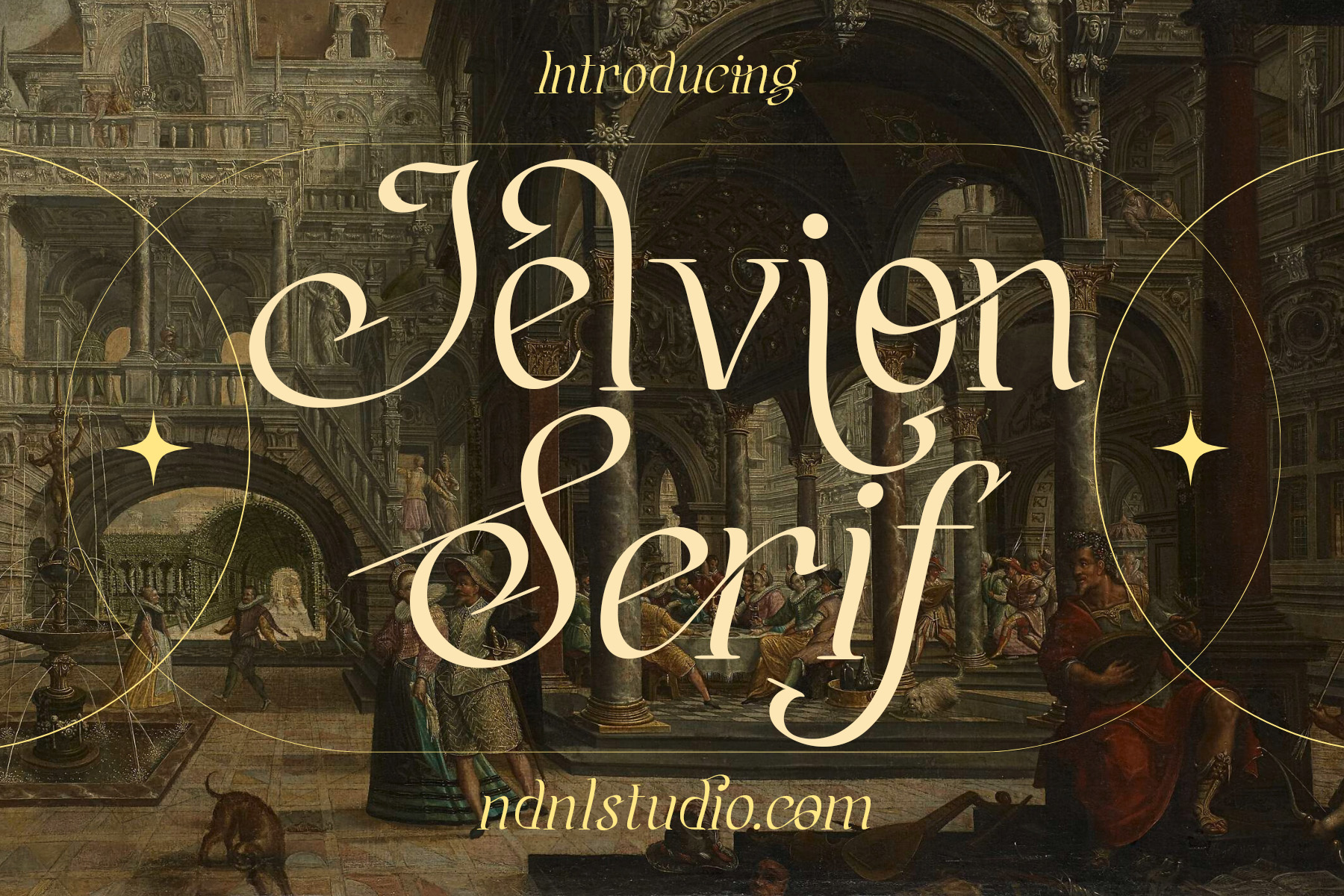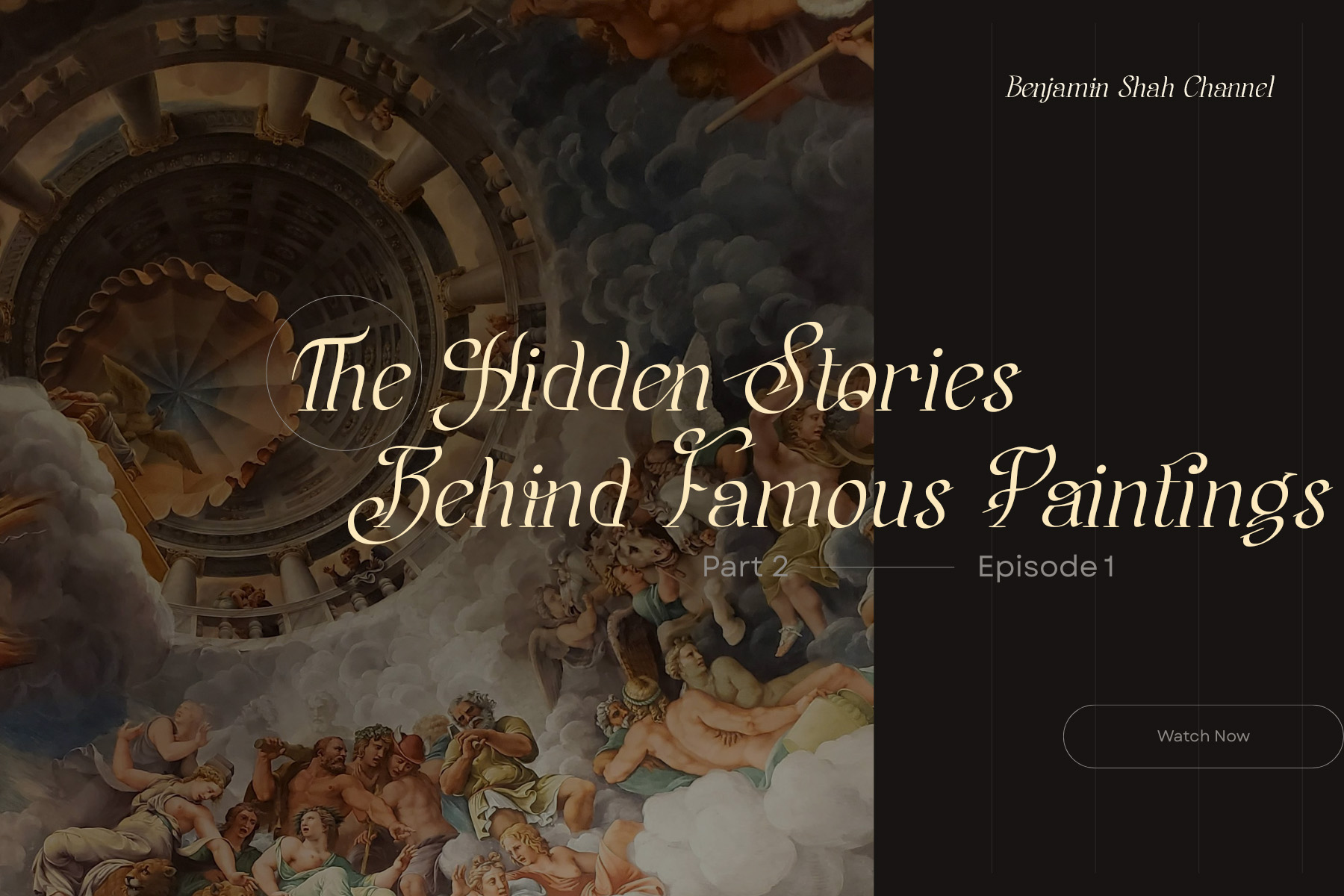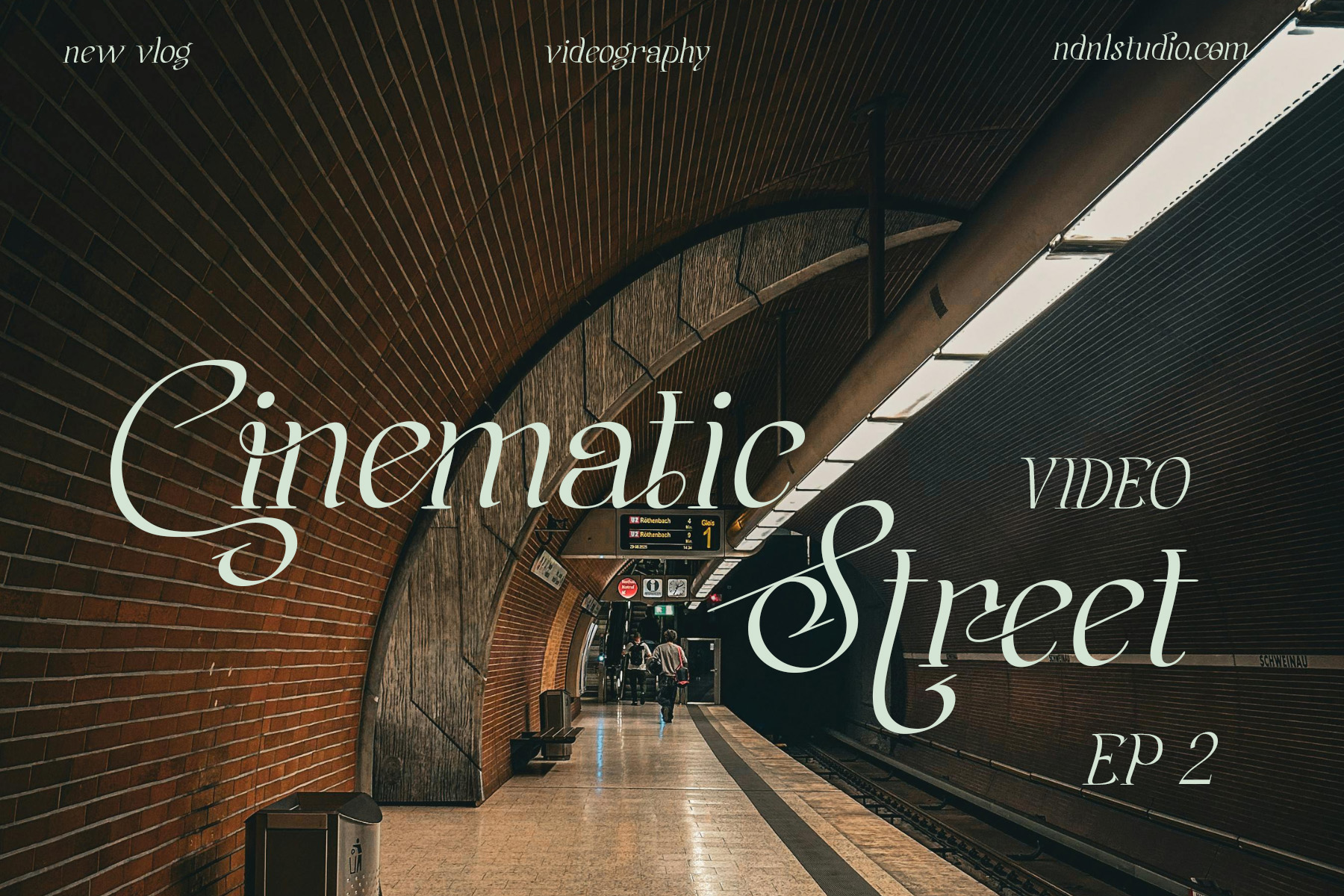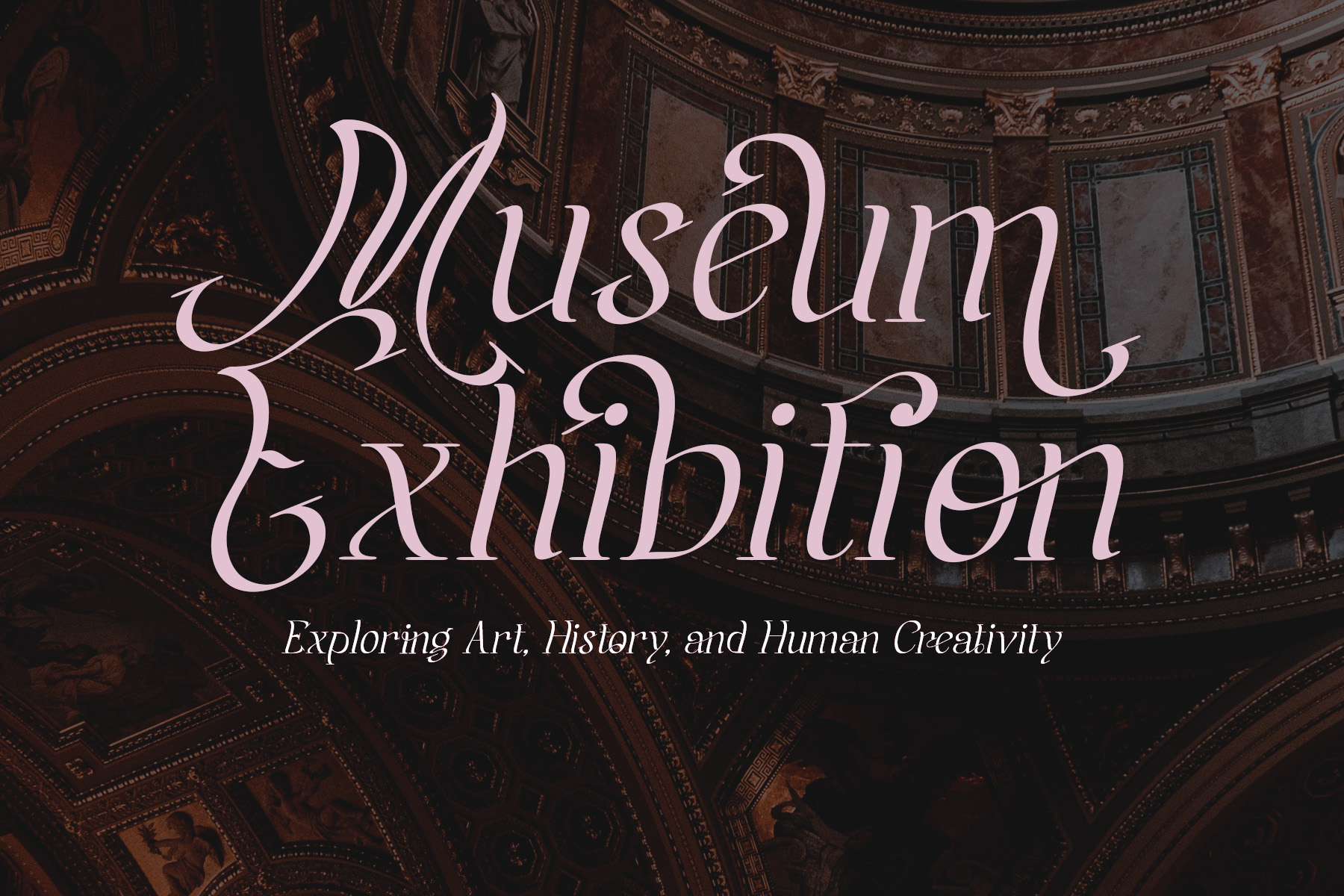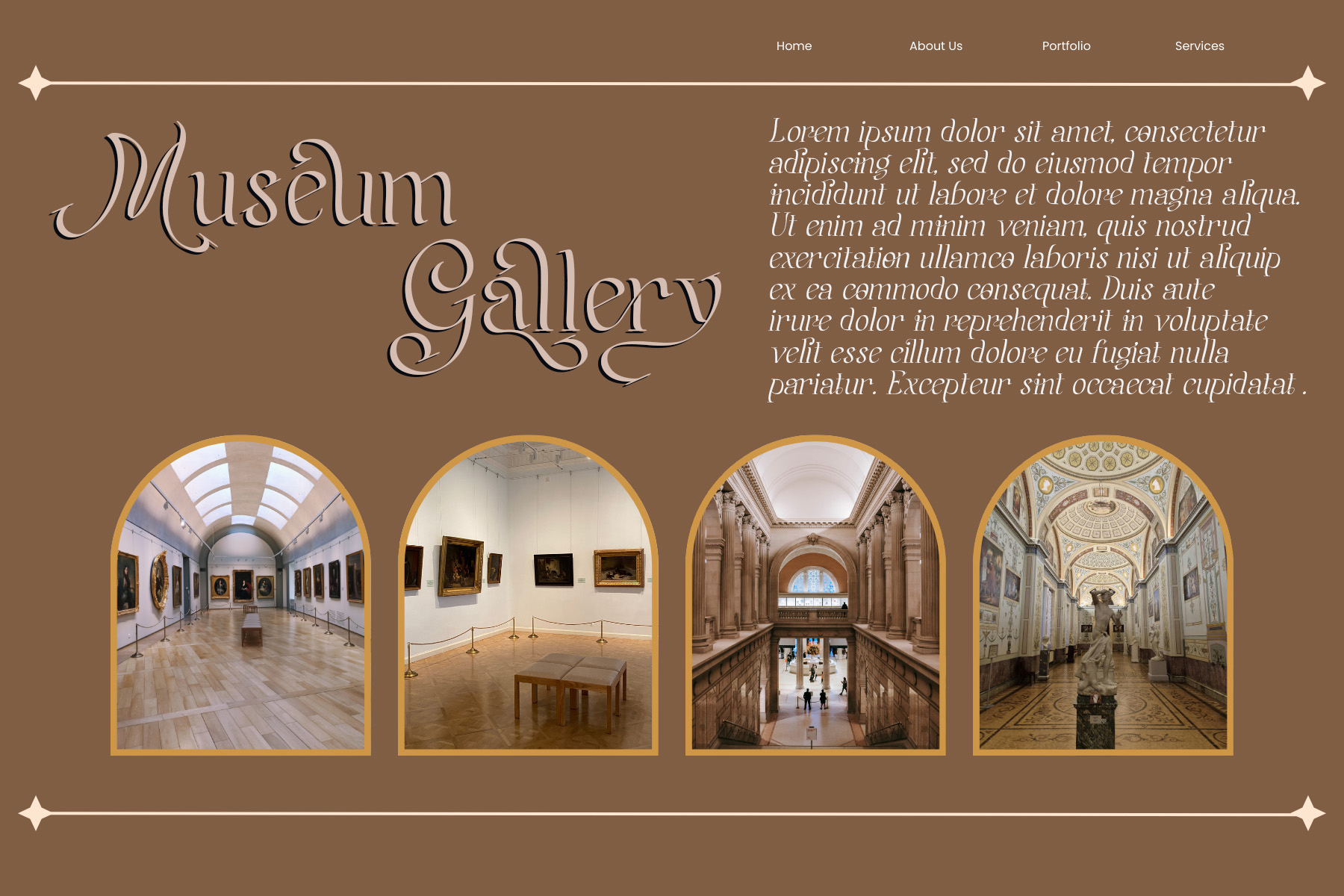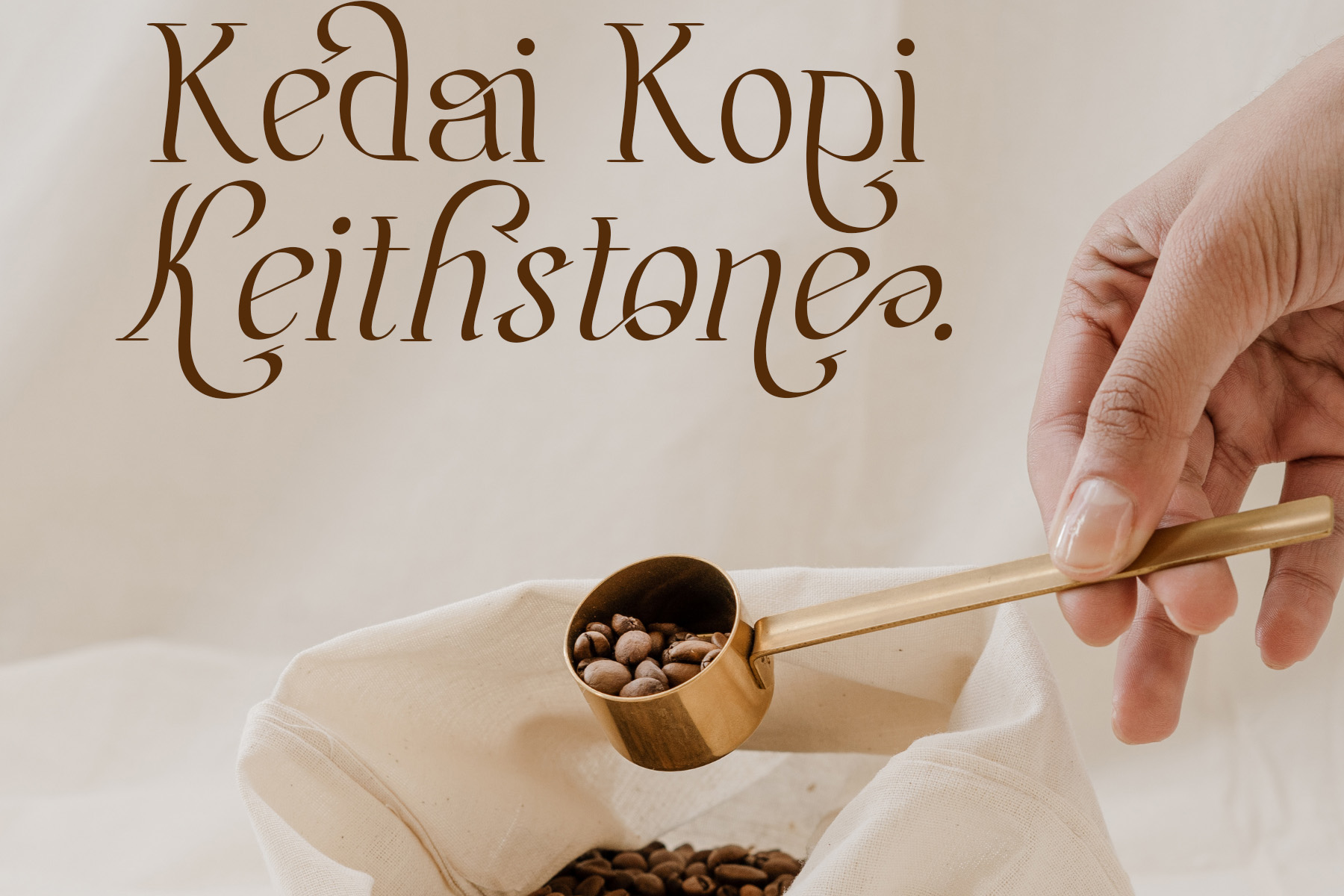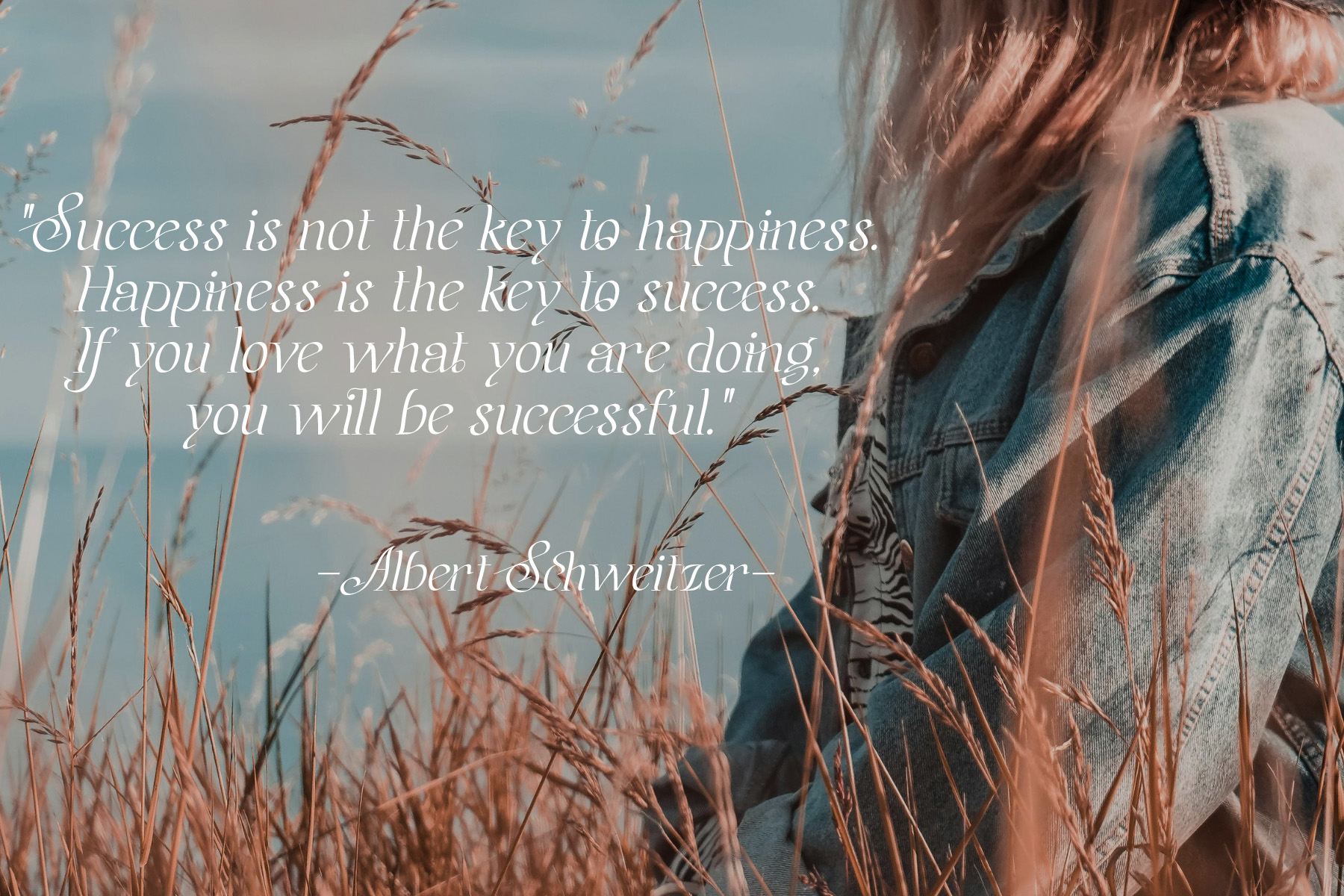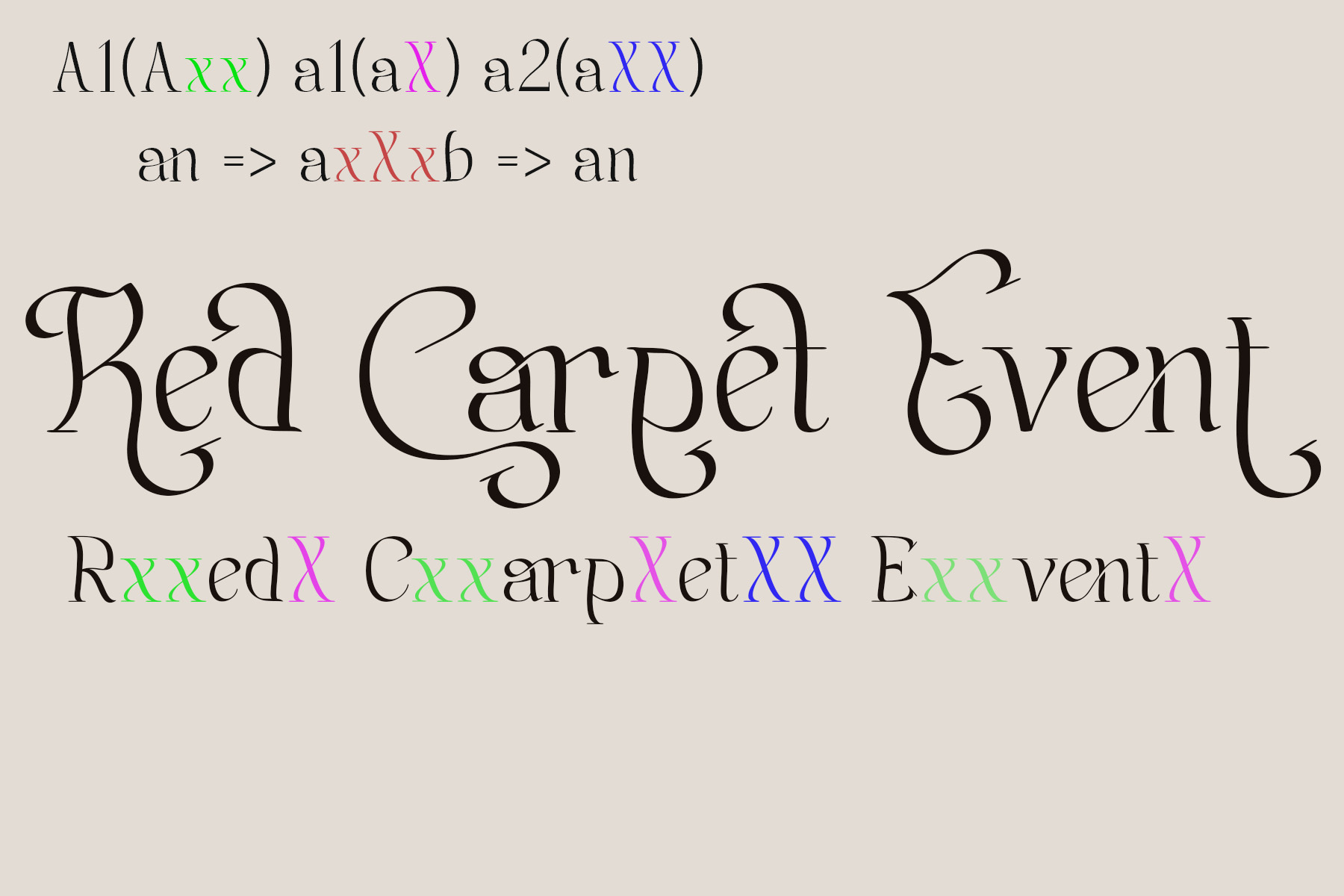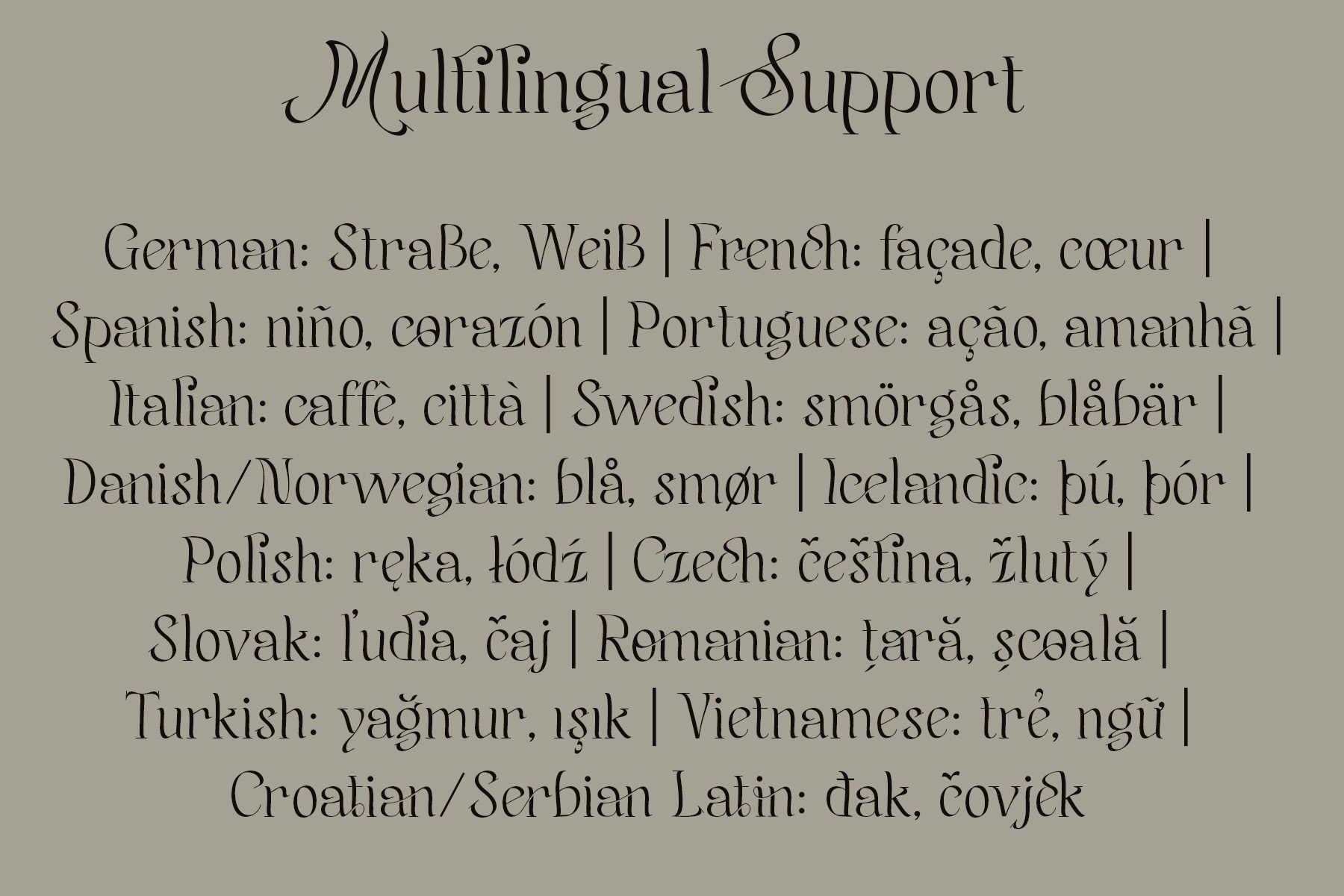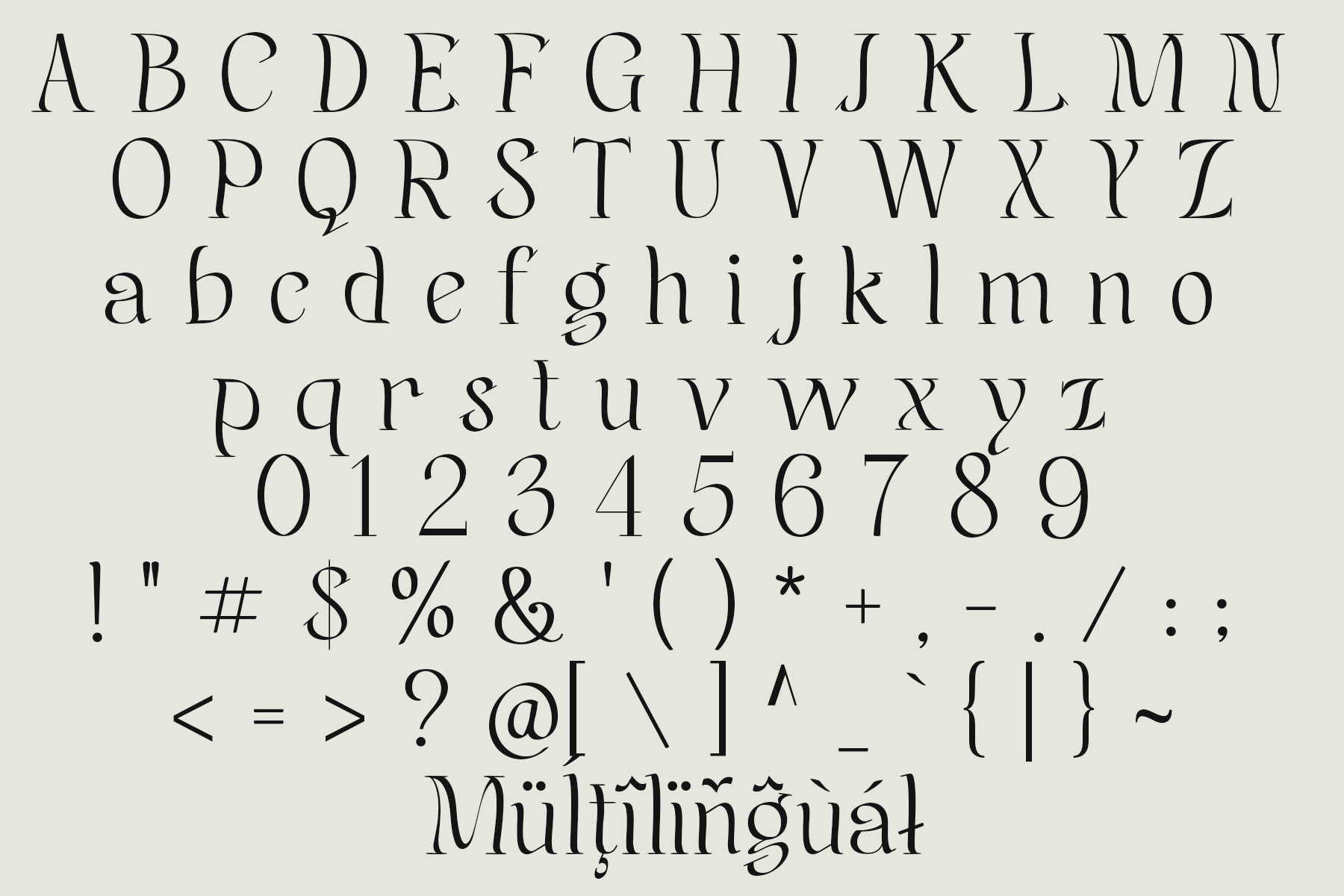
Introducing Jelvion!
Jelvion is a decorative serif typeface that embodies classic elegance and artistic sophistication. Its graceful curves and refined ornamental details are inspired by traditional European typography, giving each letterform a timeless and luxurious appearance.
Blending classical charm with modern versatility, Jelvion is perfect for high-end design projects such as logos, branding, editorial headlines, artistic posters, product packaging, and luxury visual identities. This typeface adds a refined and distinctive character to any creative composition.